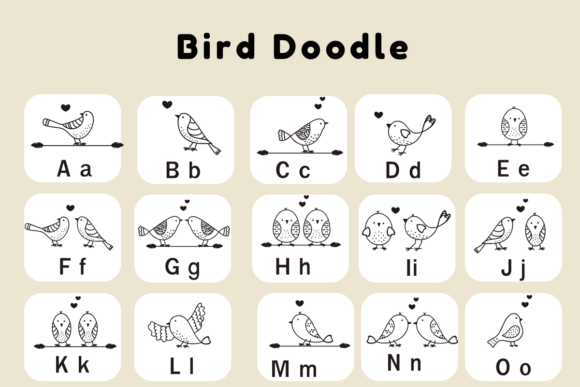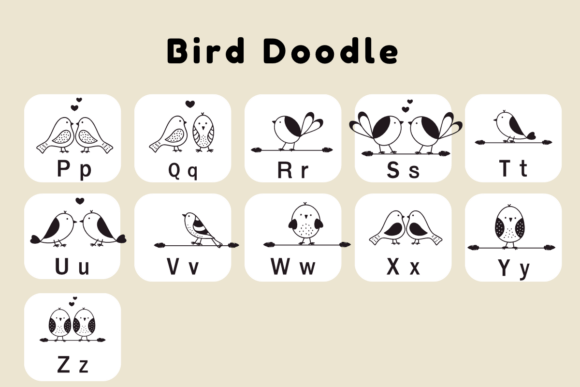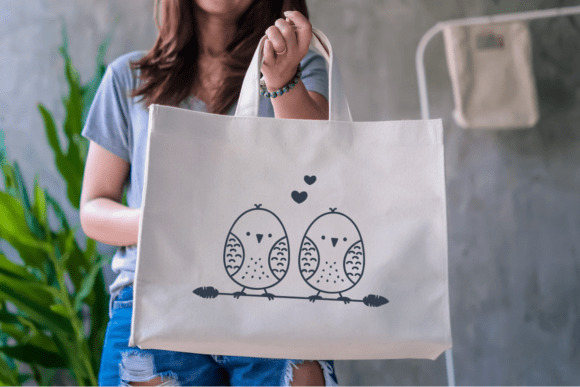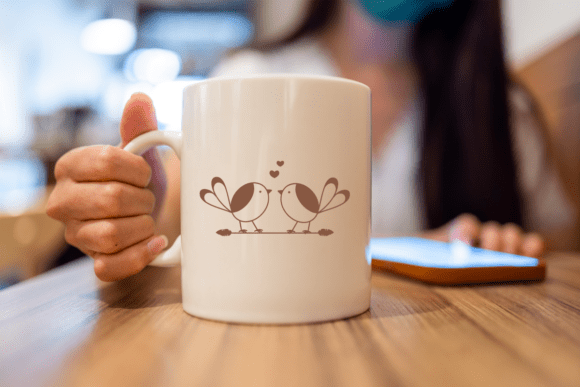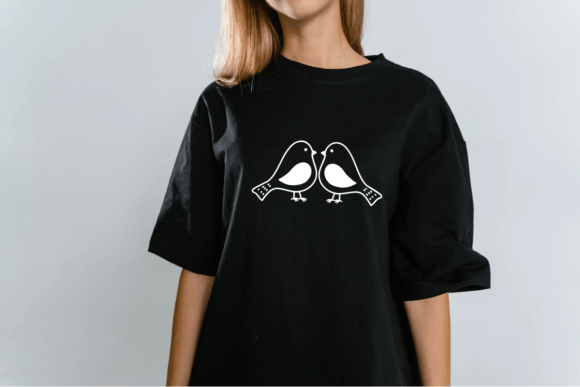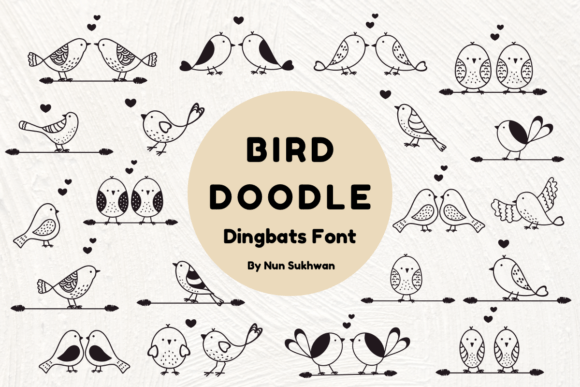
Bird Doodle Font: Elevate Your Creative Projects with a Whimsical Touch
Are you a designer, crafter, or DIY enthusiast looking for a unique and creative way to add a personal touch to your projects? Look no further than the Bird Doodle Font, a charming dingbats font that brings a sketch-style theme to your designs. With its playful and whimsical vibe, this font is perfect for a wide range of creative projects, from wedding invitations and DIY crafts to decorations, logos, and more.
What is Bird Doodle Font?
Bird Doodle Font is a dingbats font that features a delightful collection of bird-themed illustrations, including birds, nests, eggs, and more. The font is designed to resemble hand-drawn doodles, giving it a charming and organic feel that’s perfect for adding a personal touch to your designs. With its sketch-style theme, Bird Doodle Font is ideal for creating unique and eye-catching designs that stand out from the crowd.
Uses for Bird Doodle Font
The versatility of Bird Doodle Font makes it perfect for a wide range of creative projects, including:
- Wedding Invitations: Add a touch of whimsy and romance to your wedding invitations with Bird Doodle Font. Use it to create custom illustrations of birds, flowers, and other wedding-themed elements.
- DIY Crafts: From scrapbooking to card-making, Bird Doodle Font is perfect for adding a personal touch to your DIY crafts. Use it to create custom illustrations and decorations for your projects.
- Decorations: Use Bird Doodle Font to create custom wall art, garlands, and other decorations for your home or office.
- Logos: Add a touch of personality to your logo with Bird Doodle Font. Use it to create a custom illustration that reflects your brand’s unique style and personality.
- Social Media Graphics: Use Bird Doodle Font to create eye-catching social media graphics, including Facebook posts, Instagram stories, and more.
Benefits of Using Bird Doodle Font
So why choose Bird Doodle Font for your creative projects? Here are just a few benefits of using this charming font:
- Unique and Eye-Catching: Bird Doodle Font is a one-of-a-kind font that adds a touch of personality to your designs. Its unique and eye-catching illustrations are sure to grab attention and leave a lasting impression.
- Versatile: With its wide range of bird-themed illustrations, Bird Doodle Font is perfect for a variety of creative projects.
- Customizable: Use Bird Doodle Font to create custom illustrations that reflect your unique style and personality.
Tips for Using Bird Doodle Font
Here are a few tips for getting the most out of Bird Doodle Font:
- Experiment with Different Colors: Bird Doodle Font looks great in a variety of colors, from bright and bold to soft and pastel. Experiment with different colors to find the perfect look for your project.
- Mix and Match Illustrations: Bird Doodle Font features a wide range of illustrations, from birds and nests to eggs and flowers. Mix and match different illustrations to create a unique and eye-catching design.
- Use it with Other Fonts: Bird Doodle Font pairs perfectly with a variety of other fonts, from script fonts to serif fonts. Experiment with different font combinations to find the perfect look for your project.